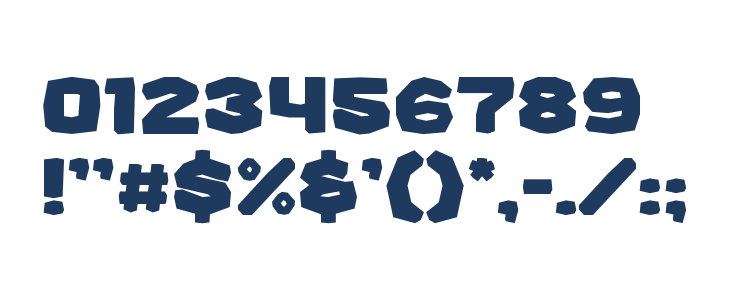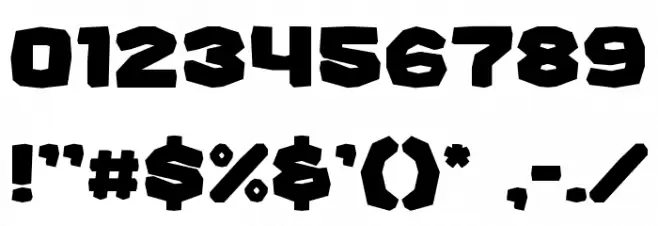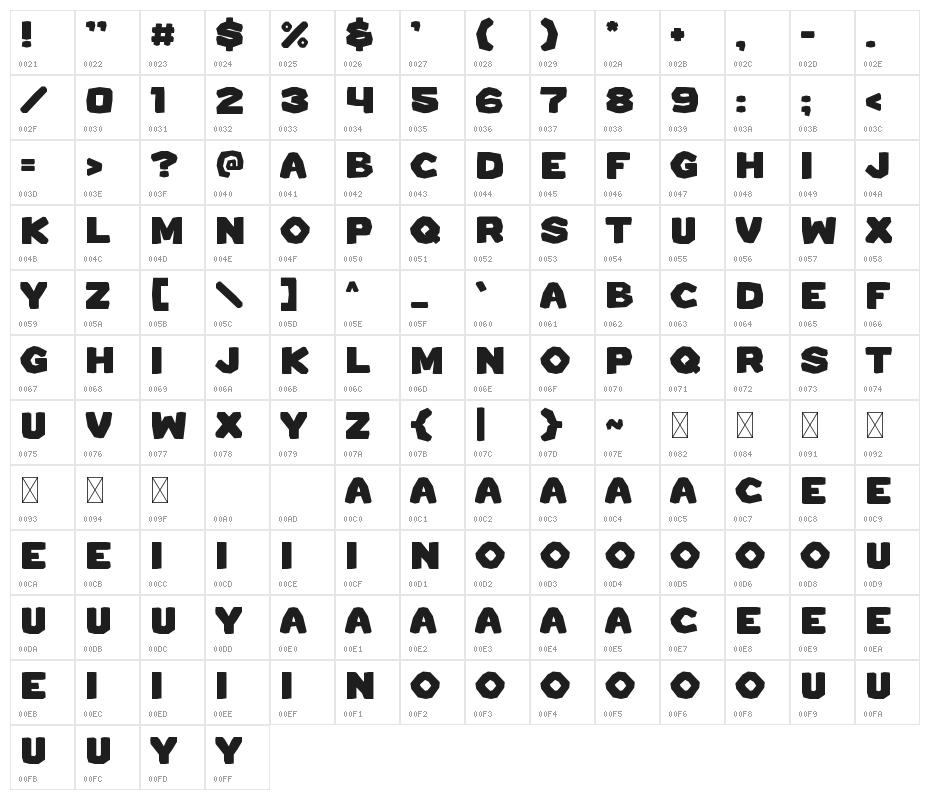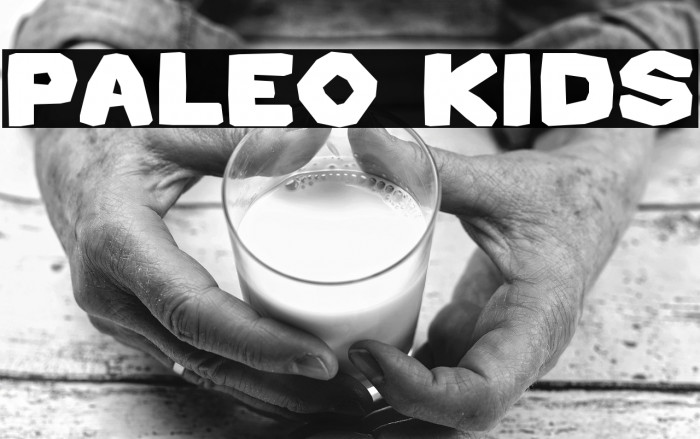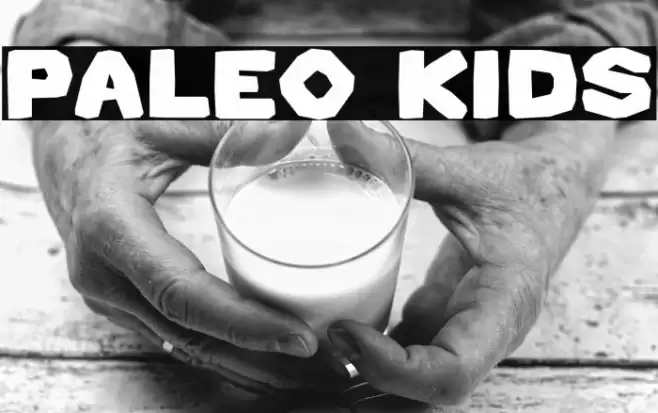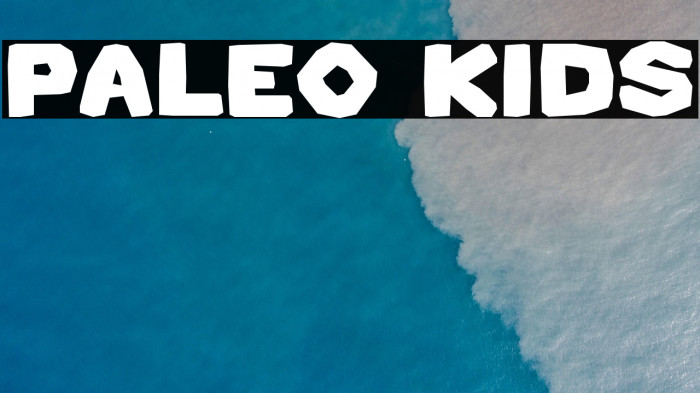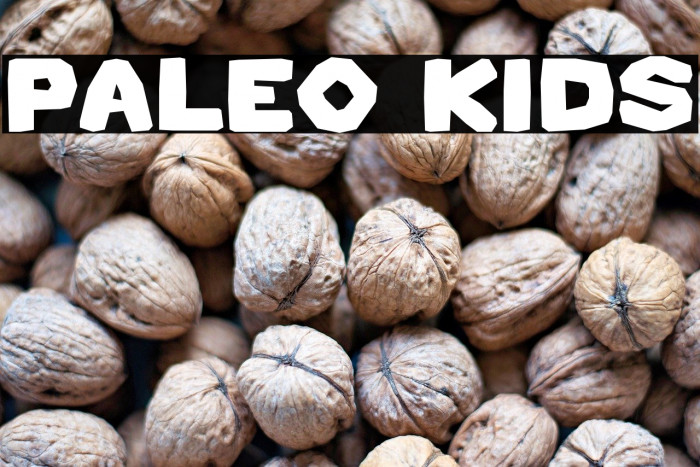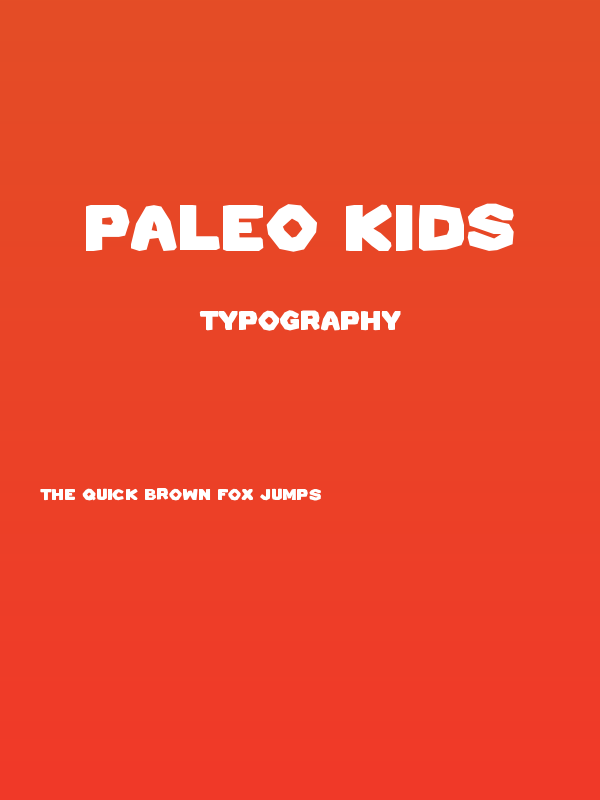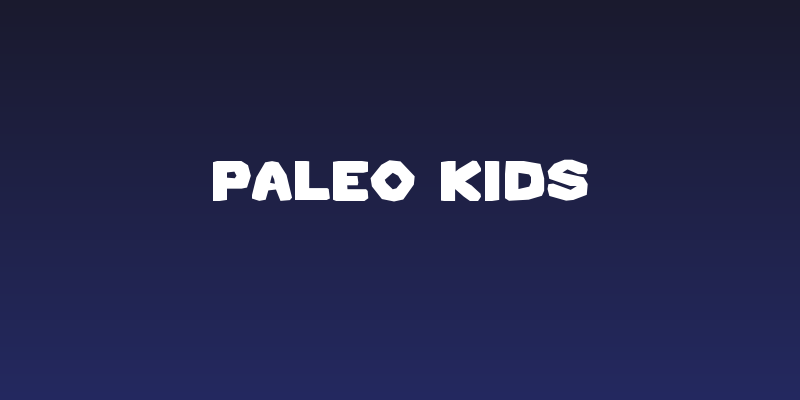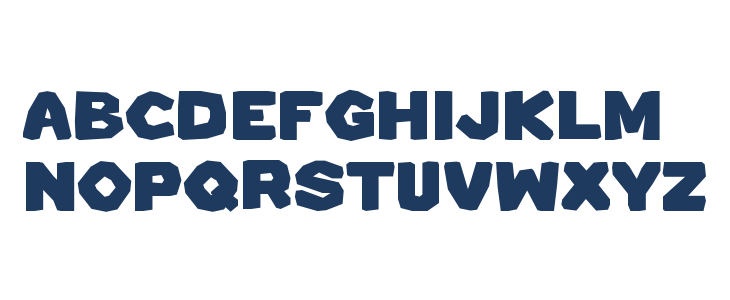
Paleo Kids Font
Paleo Kids Description
This playful and bold font features a chunky, irregular style that mimics the look of hand-carved letters. The characters have a rugged, uneven appearance, giving them a dynamic and energetic feel. The strokes are thick and consistent, with minimal contrast, creating a strong visual impact. The font is designed to capture attention and convey a sense of fun and creativity. Its unique style makes it suitable for projects that require a touch of whimsy and boldness.
| Overall Style | Playful, Creative |
| Proposed Projects | Ideal for children's books, playful branding, posters, and educational materials. |